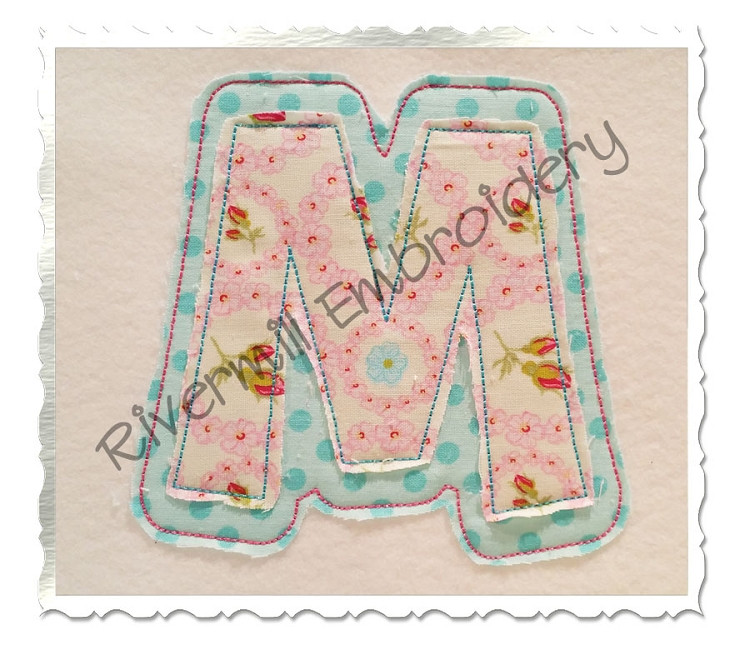
Happy Raggy Double Applique Machine Embroidery Alphabet Font
All the letters are raggy applique letters - They have a bean stitch finishing stitch instead of satin. 104 files total.